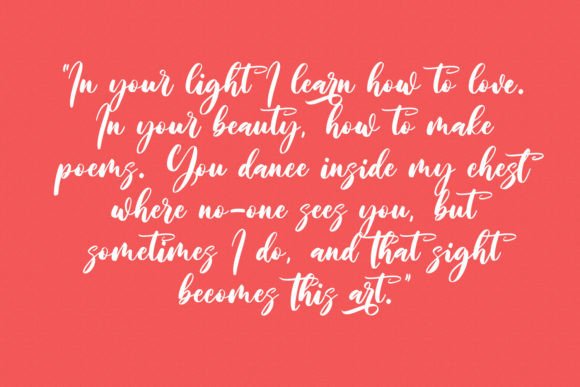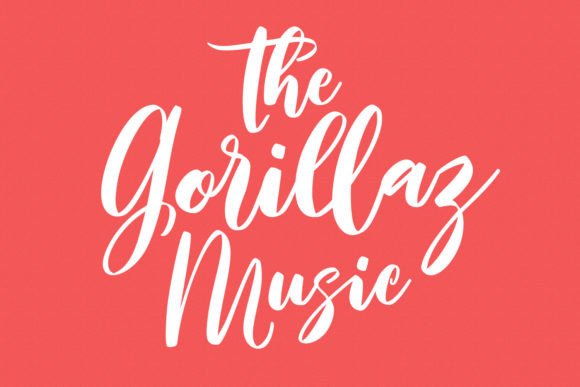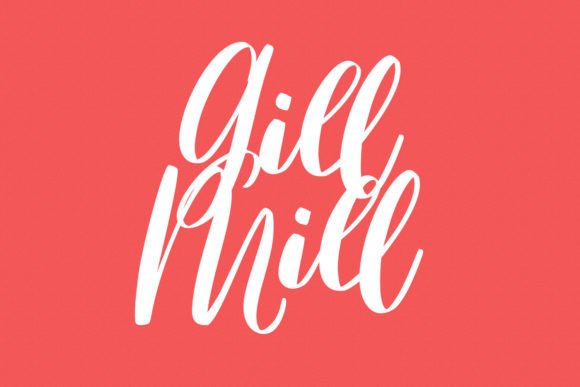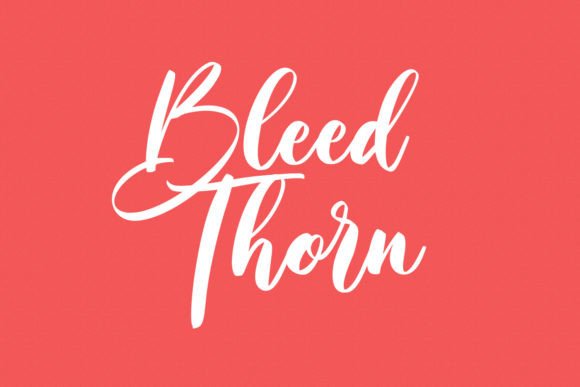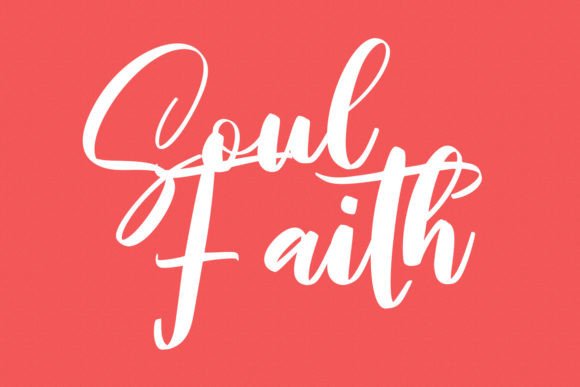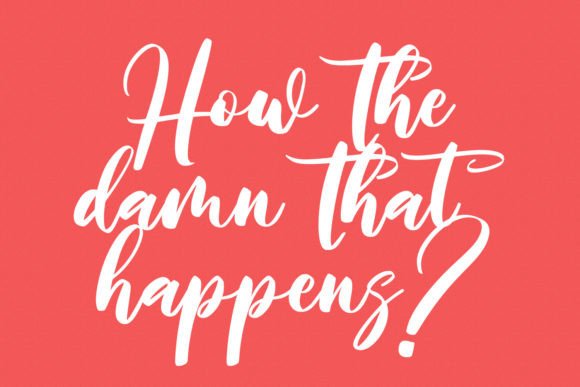
Introduction to Shineshort Font
Remember that moment when you’re working on a creative project, and the right font makes all the difference? The words start flowing effortlessly, and your design transforms into something truly breathtaking. That’s exactly what happens when you add the Shineshort Font to your design arsenal.
As a valuable design resource, the Shineshort Font is a game-changer for any creative project. Its elegant and natural style elevates your work to a whole new level, making it stand out from the crowd. Whether you’re designing a logo, a brochure, or a social media post, this high-quality font is sure to impress.
Key Features of Shineshort Font
- Unique, modern font with a transparent background, ideal for overlaying on images or videos.
- Shineshort Font is a highly legible font, designed for use in a wide range of creative projects, from logos to digital signage.
- Perfect for designers, artists, and content creators seeking a high-quality, versatile font for their next project.
Honest Review: Shineshort Font
As a designer, I’m always on the lookout for high-quality design resources to enhance my creative projects. Recently, I stumbled upon the Shineshort Font, and I must say, it’s been a great addition to my design arsenal.
- ✨ Beautiful, modern design that’s perfect for creative projects
- ✨ High-quality typography that’s easy to read
- ✨ Transparent background, allowing for seamless integration into various design elements
However, I do have a few gripes:
- ⚠️ Limited font styles available (only a few options)
Overall, I’m quite impressed with the Shineshort Font. It’s a fantastic resource for designers looking to add a touch of modernity to their creative projects. While it may have some limitations, its high-quality design and free download make it a worthwhile addition to any design library.
Tips for Getting the Most Out of Shineshort Font
For a high-quality design, use Shineshort Font with a transparent background to create a clean and modern look. Experiment with different font sizes and styles to add visual interest to your design.
Common Use Cases for Shineshort Font
Shineshort Font is ideal for creative projects such as logos, business cards, and brochures. Its modern and sleek design makes it perfect for any project that requires a professional and stylish look.
Alternatives to Shineshort Font
Great Vibes Font is a high-quality, cursive script font that’s perfect for creative projects, such as wedding invitations, magazine covers, or social media graphics. It’s available for free download and features a transparent background, making it easy to layer with other design elements. Great Vibes Font is a great alternative to Shineshort Font for designers looking for a more elegant, handwritten feel.
Comparison to Shineshort Font: Great Vibes Font has a more refined, sophisticated look, whereas Shineshort Font has a more playful, casual feel.
Alex Brush Font is a high-quality, handwritten font that’s perfect for design projects, such as logos, branding, or packaging. It features a transparent background and is available for free download. Alex Brush Font is a great alternative to Shineshort Font for designers looking for a more elegant, calligraphic feel.